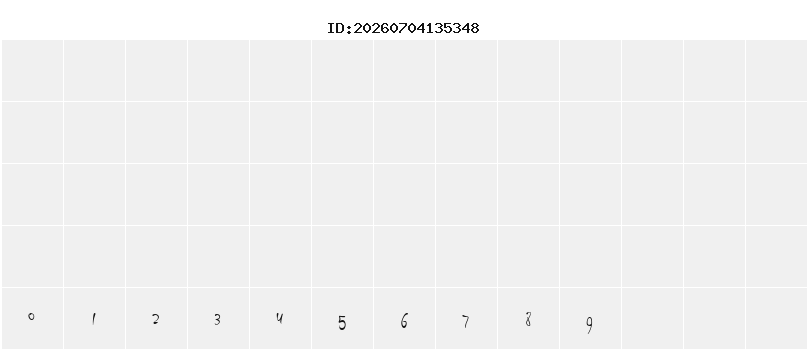
Dybbuk Preview
• Font Name: Dybbuk
• Font ID: Meir Sadan Dybbuk
• Full Font Name: Dybbuk Regular
• Version: Version 1.50
• PostScript Name: Dybbuk
• Character Count: 245
• Copyright: Copyright (C) 1998 Meir Sadan
• Designer: Meir Sadan
• Manufacturer: Meir Sadan
• Description: Dybbuk means "obsession" in hebrew. This is a hebrew font, so go and read the hebrew description at sadan.com!